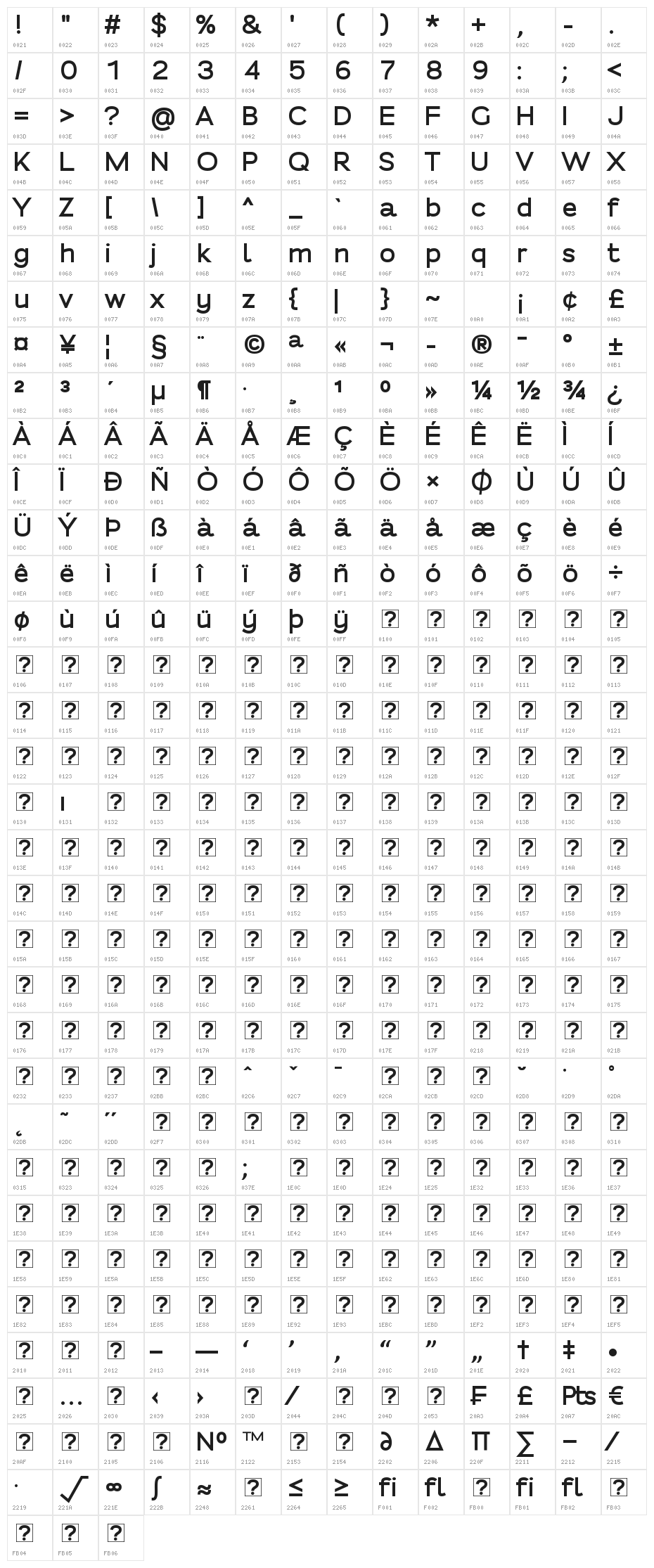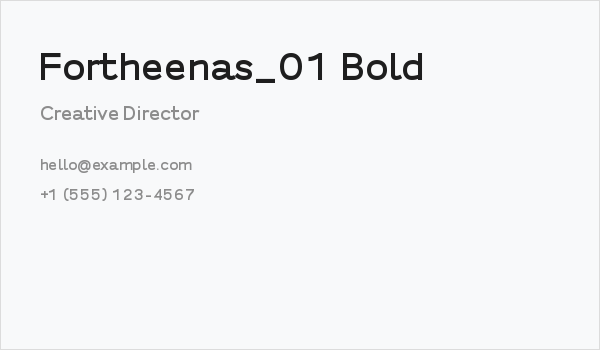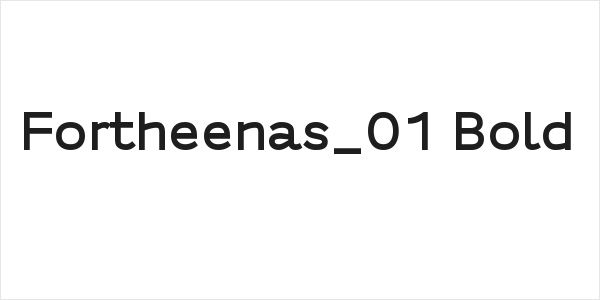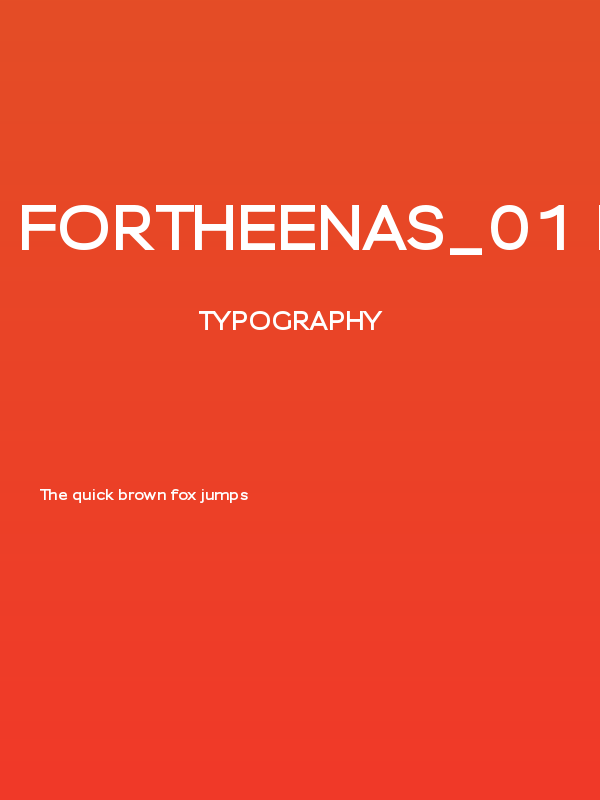
Fortheenas_01 Bold Font
Fortheenas_01 Bold Description
This font features a clean and modern sans-serif style with bold, uniform strokes that convey a sense of clarity and strength. The characters are well-proportioned, with a consistent height and width that enhance readability. The uppercase letters are slightly taller than the lowercase, maintaining a balanced appearance. The numerals are clear and distinct, matching the overall boldness of the alphabet. Special characters are designed with the same attention to detail, ensuring they integrate seamlessly with the text. This font is versatile, suitable for both digital and print media, and can be used effectively in various design contexts.
Use CaseHeadlines, Logos, Branding
Proposed ProjectsIdeal for branding, advertising, web design, and editorial projects where clarity and impact are essential.